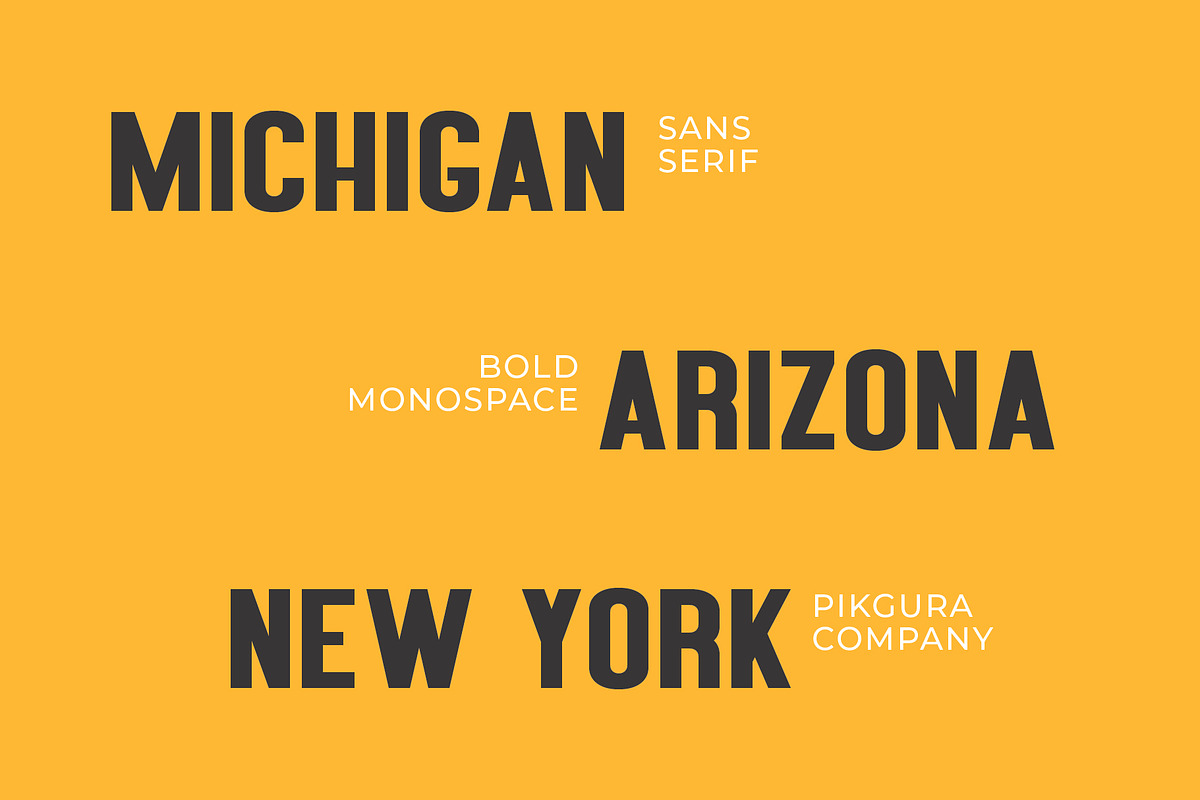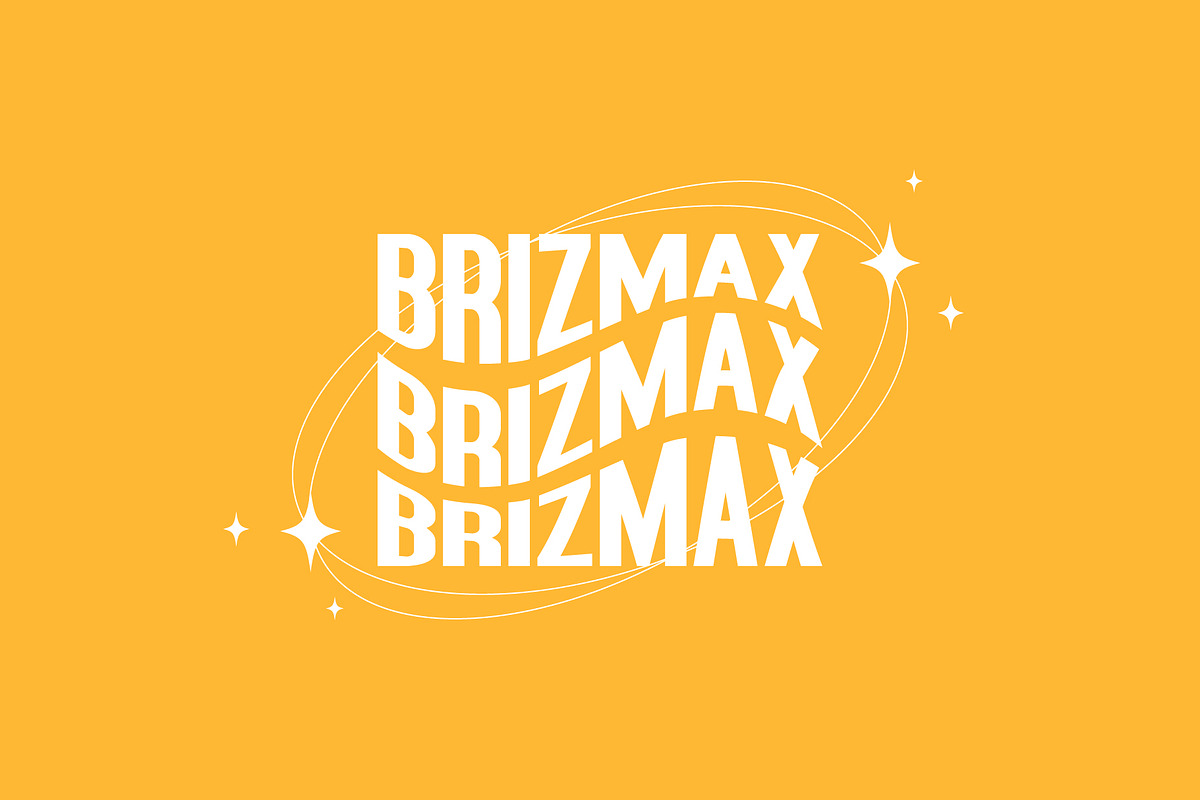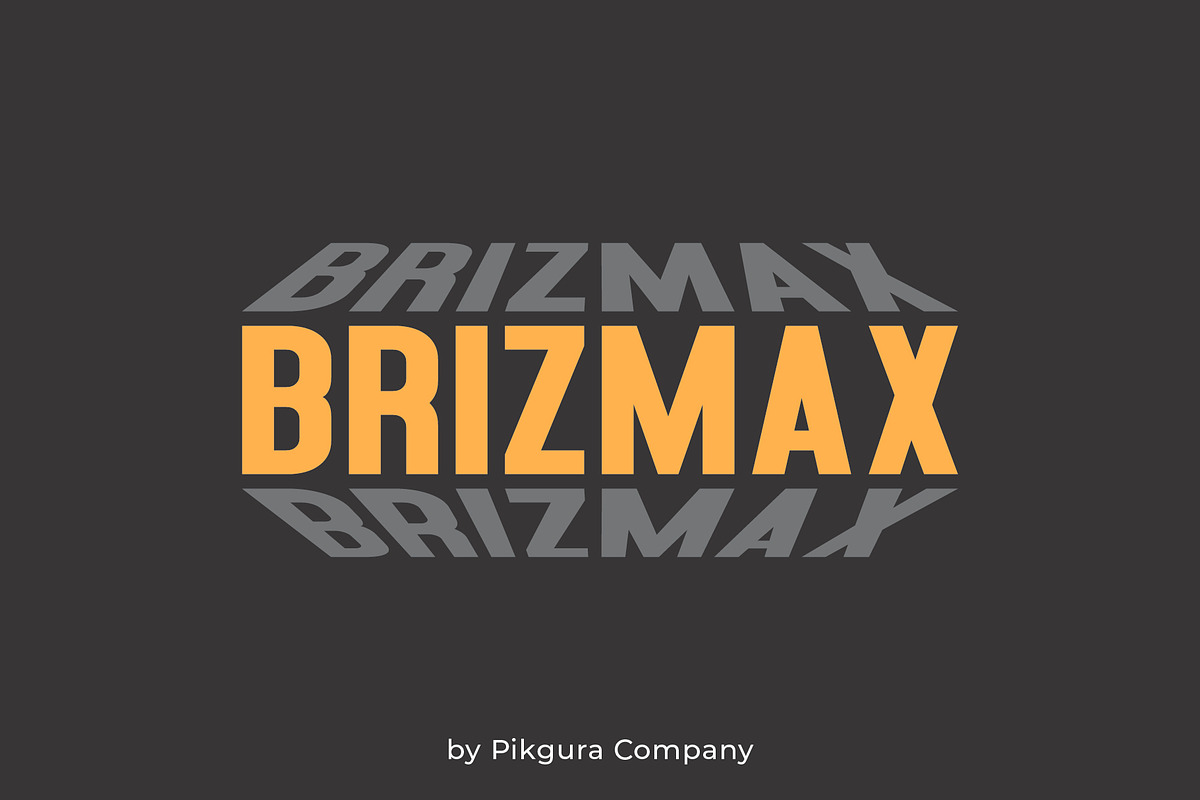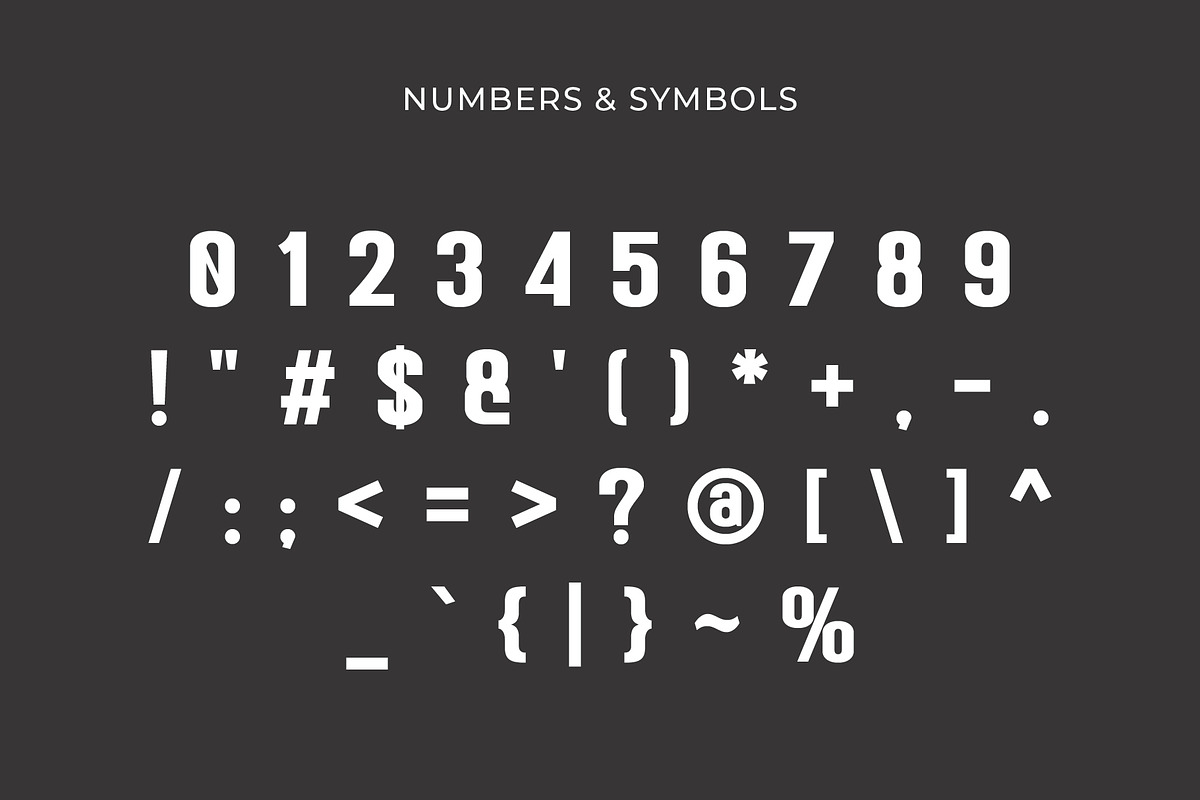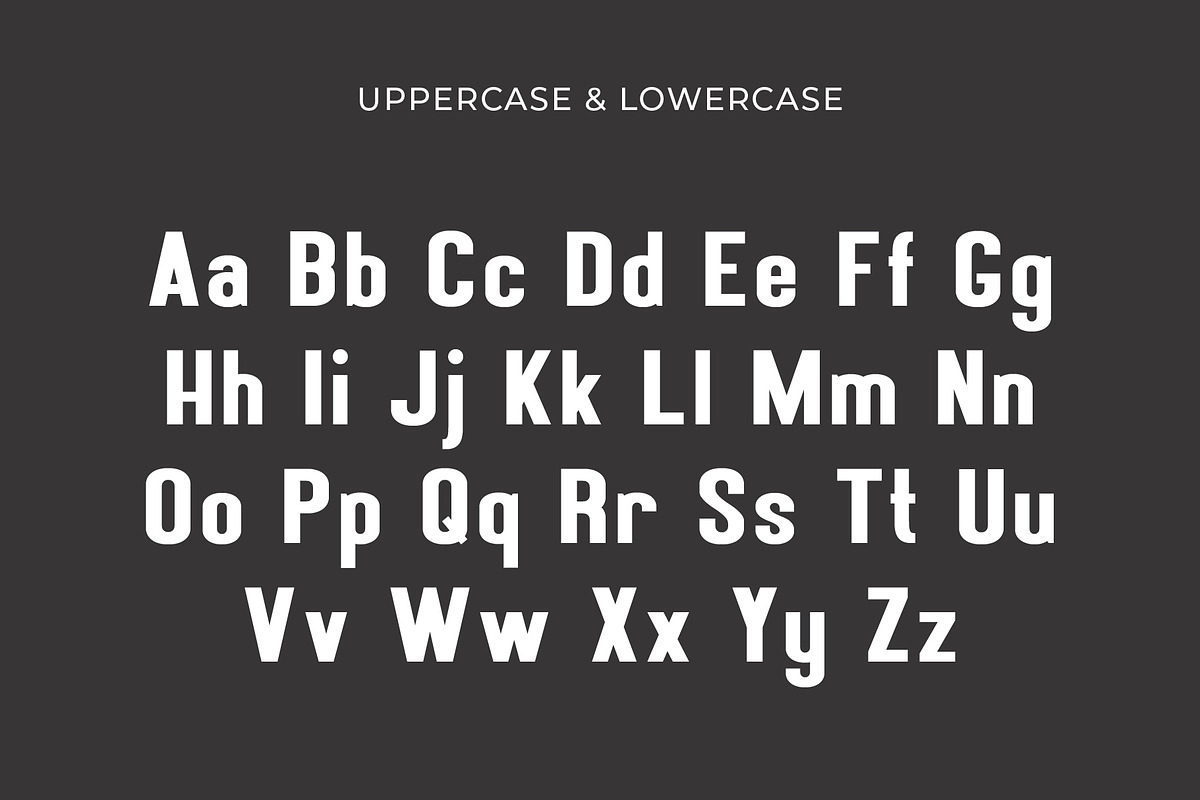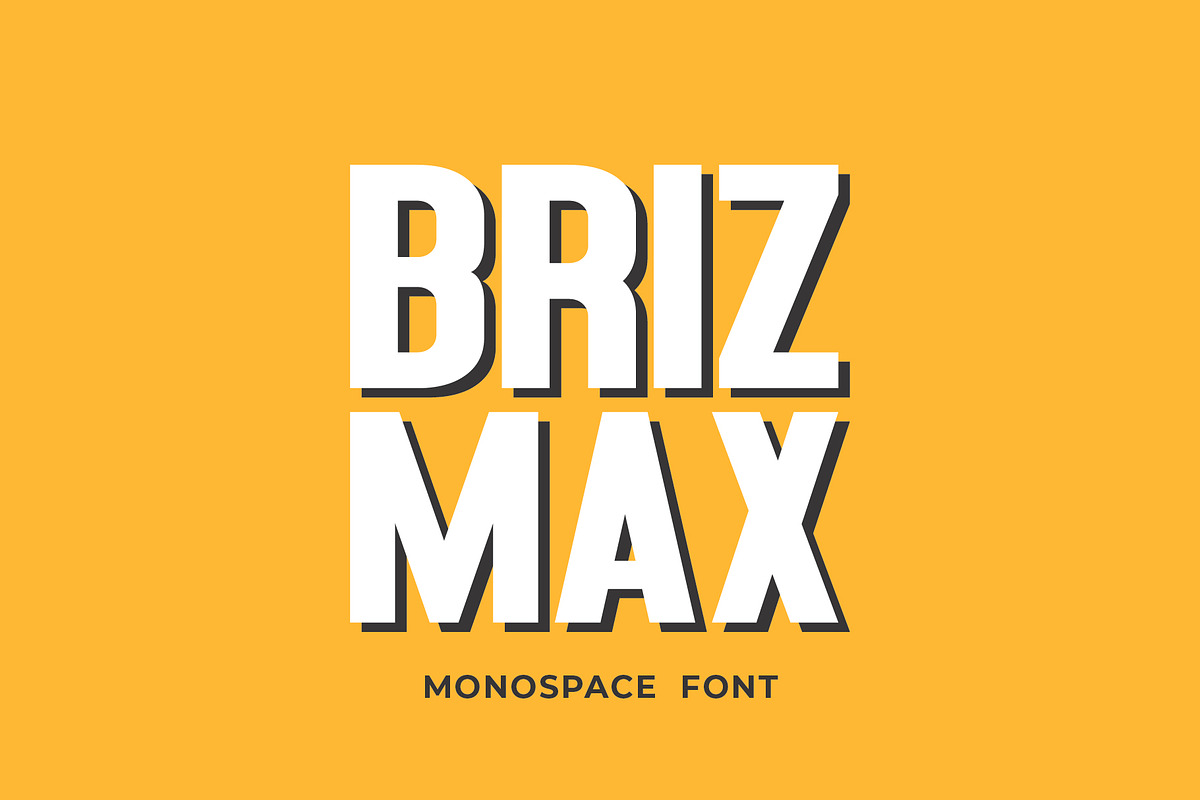
Brizmax - Maximum Monospace Font
Introducing Brizmax, the bold and striking monospace font designed to make a statement! With its strong lines and clear structure, Brizmax is perfect for projects that require a modern and professional touch. This versatile font includes uppercase and lowercase letters, numbers, and basic punctuation, providing you with all the essentials for your design needs.